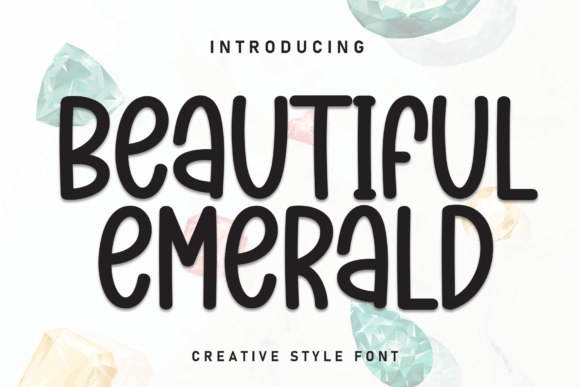
Introducing Beautiful Emerald Font: A Sweet and Friendly Handwritten Delight
The world of typography is vast and diverse, with numerous fonts catering to various design needs. Among these, handwritten fonts hold a special place in the hearts of designers and readers alike. They bring a personal touch, a sense of warmth, and a dash of personality to any design project. One such gem is the Beautiful Emerald font, a sweet and friendly handwritten font that has been making waves in the design community. In this article, we’ll dive into the world of Beautiful Emerald, exploring its unique features, versatility, and the endless possibilities it offers to designers.
The Charm of Beautiful Emerald Font
Beautiful Emerald is a sweet and friendly handwritten font that boasts a natural and unique style. Its charm lies in its ability to effortlessly complement a wide range of designs, from elegant and sophisticated to playful and whimsical. The font’s creator has carefully crafted each letter to exude a sense of warmth and approachability, making it perfect for projects that require a personal touch.
Key Features of Beautiful Emerald Font
- Handwritten Style: Beautiful Emerald features a genuine handwritten look, complete with subtle imperfections and variations in line width.
- Unique Character: Each letter has been carefully designed to showcase a distinct personality, making the font stand out from more traditional typefaces.
- Natural Flow: The font’s natural flow and rhythm make it a joy to read, whether it’s used for body text or headlines.
- Versatility: Beautiful Emerald is incredibly versatile, suitable for a wide range of design projects, from branding and advertising to packaging and digital media.
Exploring the Versatility of Beautiful Emerald
One of the most significant advantages of Beautiful Emerald is its versatility. This font can be used in a multitude of design projects, including:
Design Applications
- Branding and Identity: Create a lasting impression with Beautiful Emerald, perfect for logos, business cards, and brand guidelines.
- Advertising and Marketing: Use the font in advertisements, brochures, and flyers to add a touch of personality and approachability.
- Packaging Design: Beautiful Emerald is ideal for product packaging, adding a personal touch to labels, tags, and packaging materials.
- Digital Media: The font is also suitable for digital media, including social media graphics, blog posts, and website headers.
The Benefits of Using Beautiful Emerald Font
So, why choose Beautiful Emerald for your design projects? Here are just a few benefits:
The Benefits
- Emotional Connection: The font’s friendly and approachable style helps create an emotional connection with readers.
- Unique Identity: Beautiful Emerald’s distinctive character ensures your design stands out from the crowd.
- Easy to Read: The font’s natural flow and clear letterforms make it easy to read, even in smaller sizes.
- Time-Saving: With Beautiful Emerald, you can achieve professional-looking results without spending hours on design.
Tips for Using Beautiful Emerald Font
To get the most out of Beautiful Emerald, here are a few tips:
Tips and Tricks
- Experiment with Colors: Play with different color schemes to find the perfect match for your design.
- Mix and Match: Combine Beautiful Emerald with other fonts to create a unique visual hierarchy.
- Pay Attention to Spacing: Ensure sufficient spacing between letters and lines to maintain readability.
- Have Fun: Don’t be afraid to try new things and push the boundaries of what’s possible with Beautiful Emerald.
In conclusion, Beautiful Emerald font is a sweet and friendly handwritten font that offers a world of creative possibilities. Its unique style, versatility, and emotional connection make it an excellent choice for designers looking to add a personal touch to their projects. Whether you’re working on branding, advertising, packaging, or digital media, Beautiful Emerald is sure to impress. So why not give it a try and see the difference it can make in your designs?